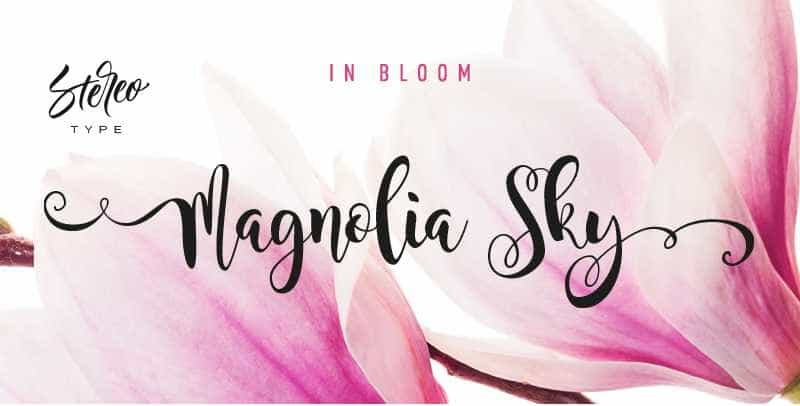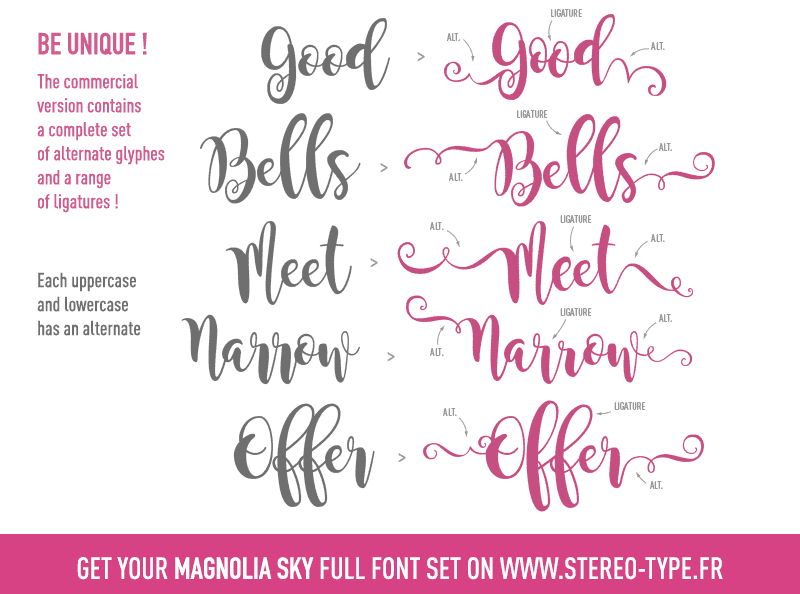
Discover Magnolia Sky Font Free, part of the Calligraphy collection—a versatile and unique font perfect for adding a personal touch to your projects. Download it for free and enjoy crafting designs with style, from invitations to social media posts. This font is available exclusively for personal use, giving you the freedom to create without limits. Unlock your creativity with Magnolia Sky Font Free today!